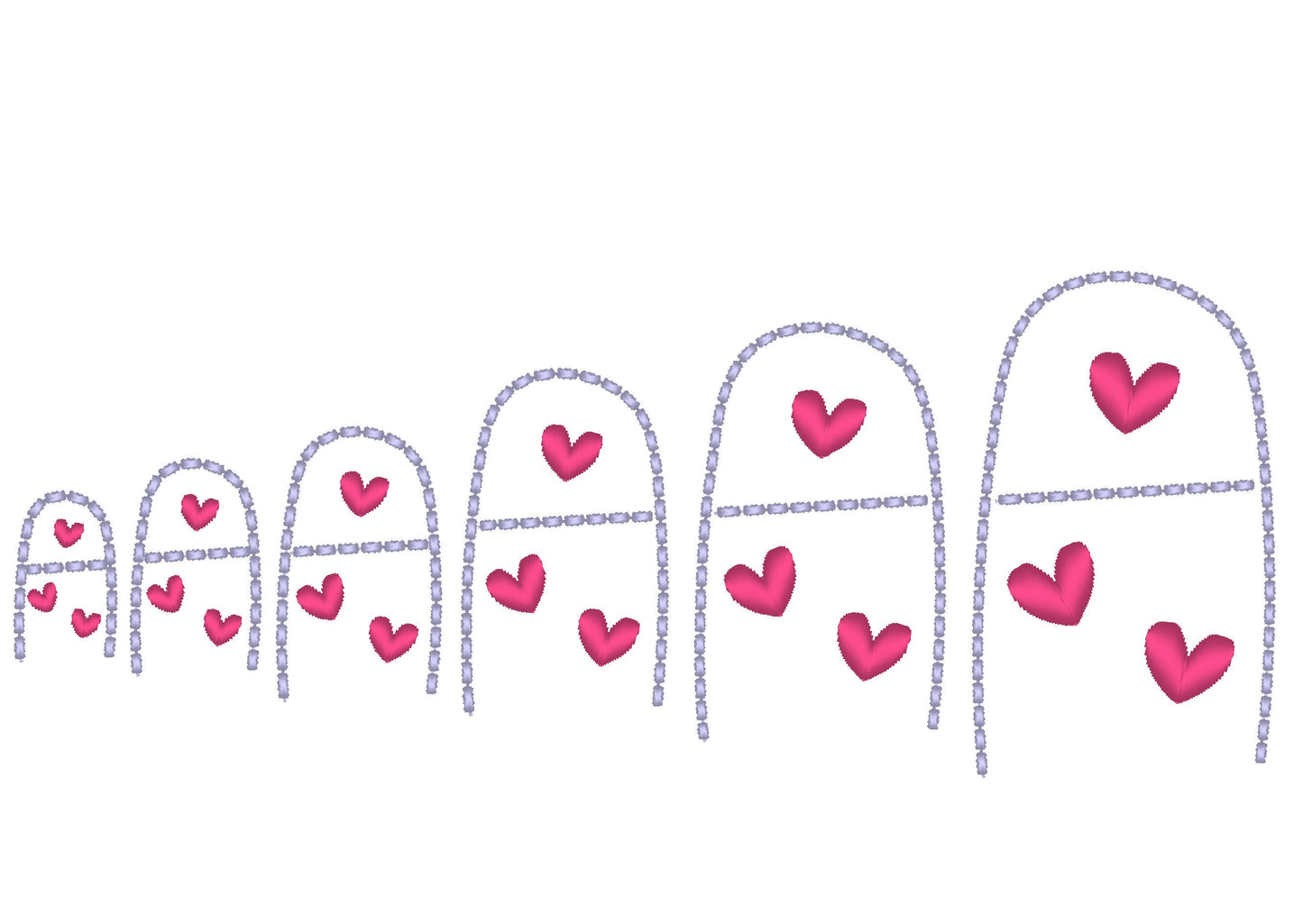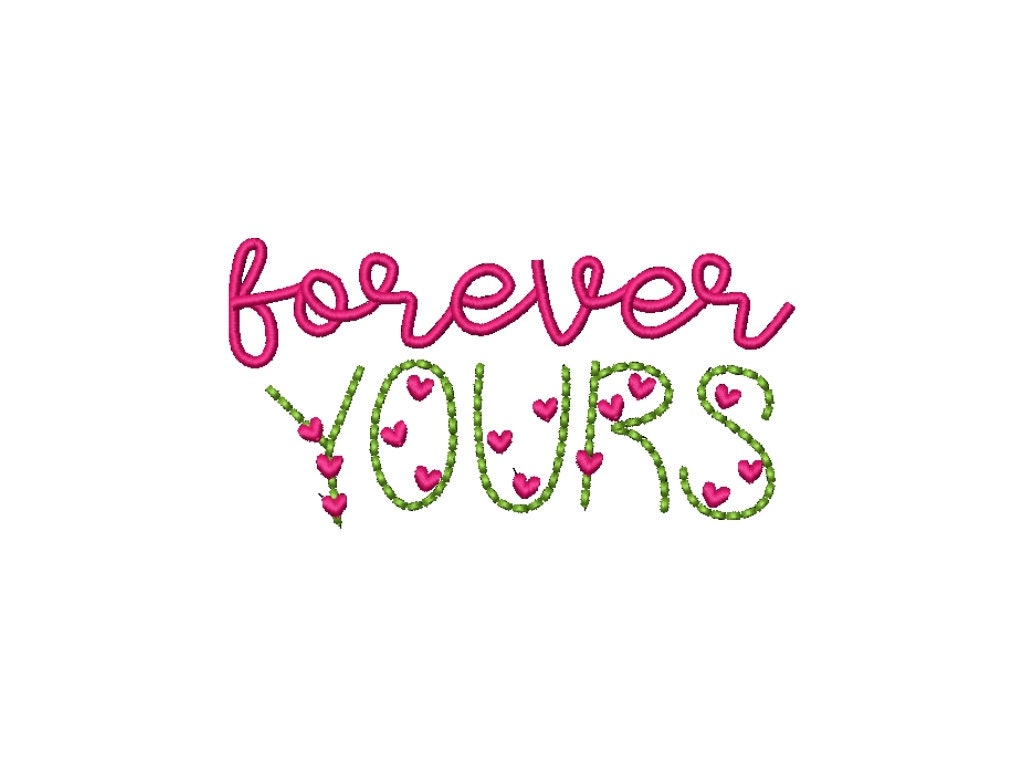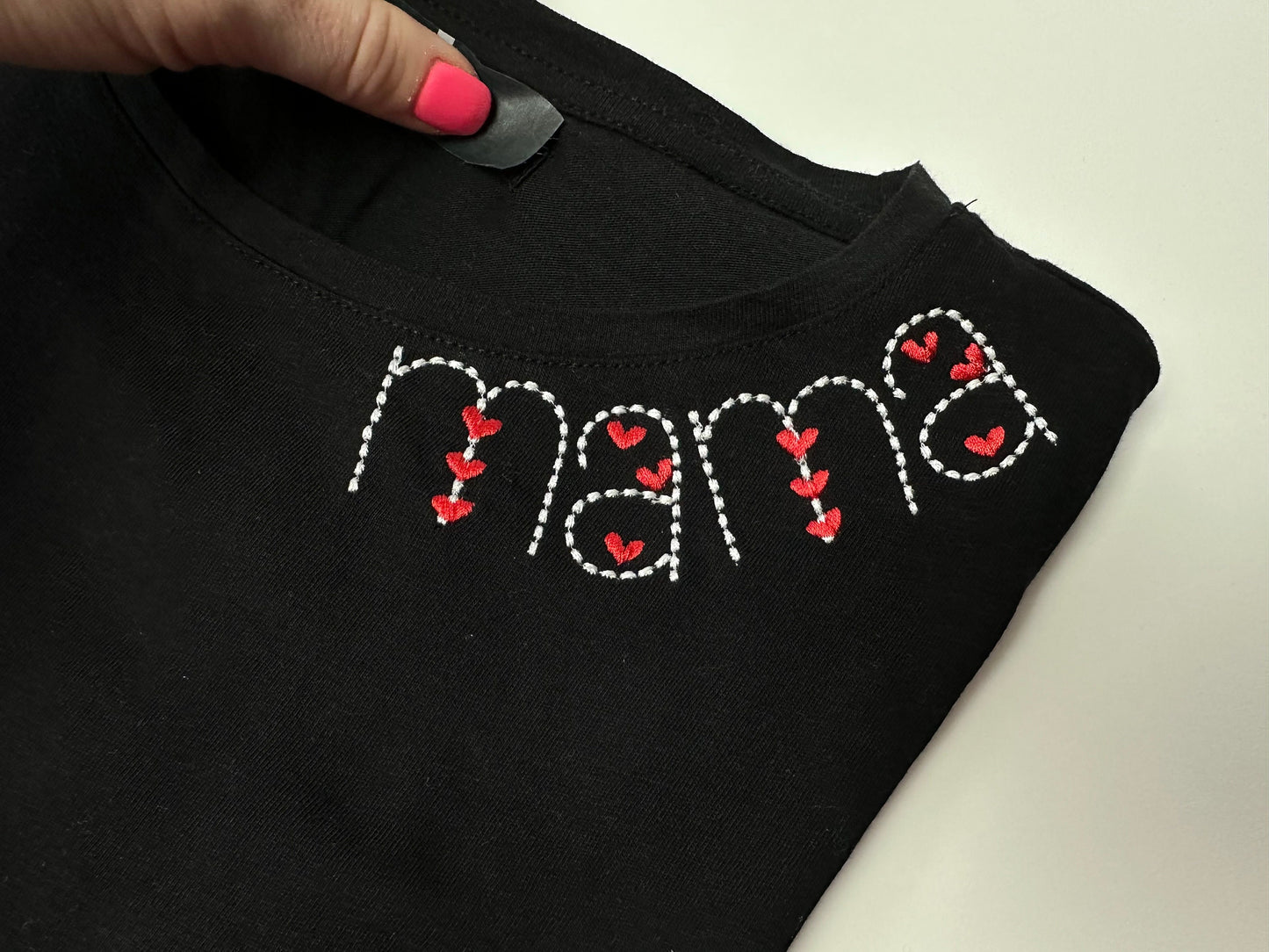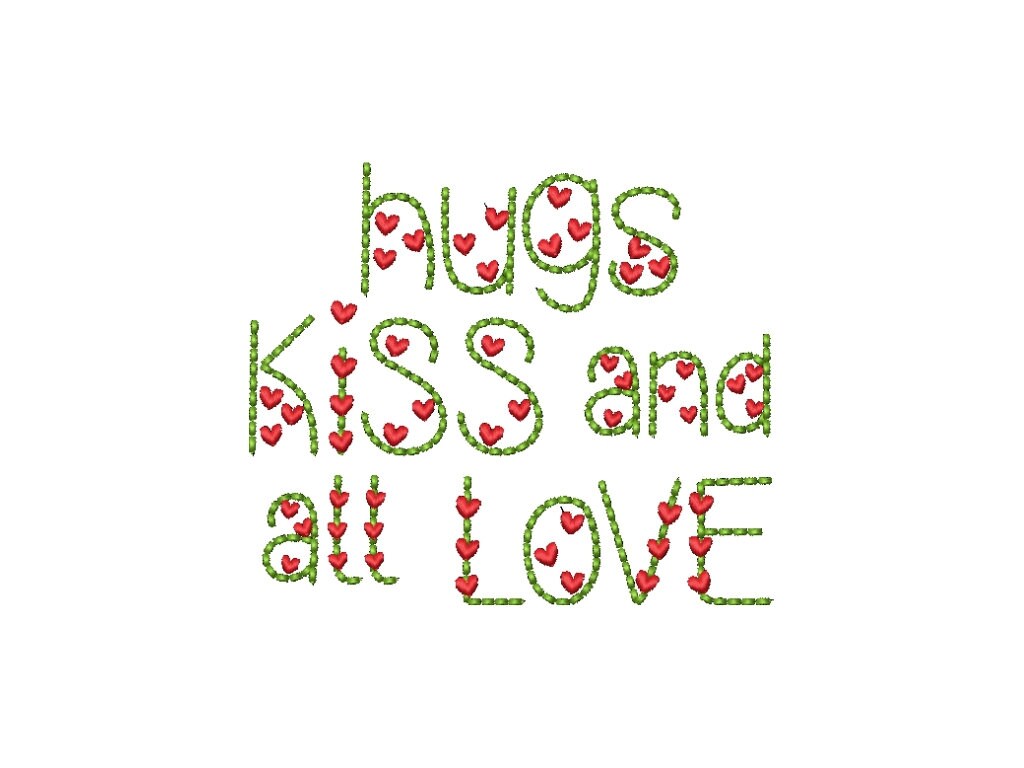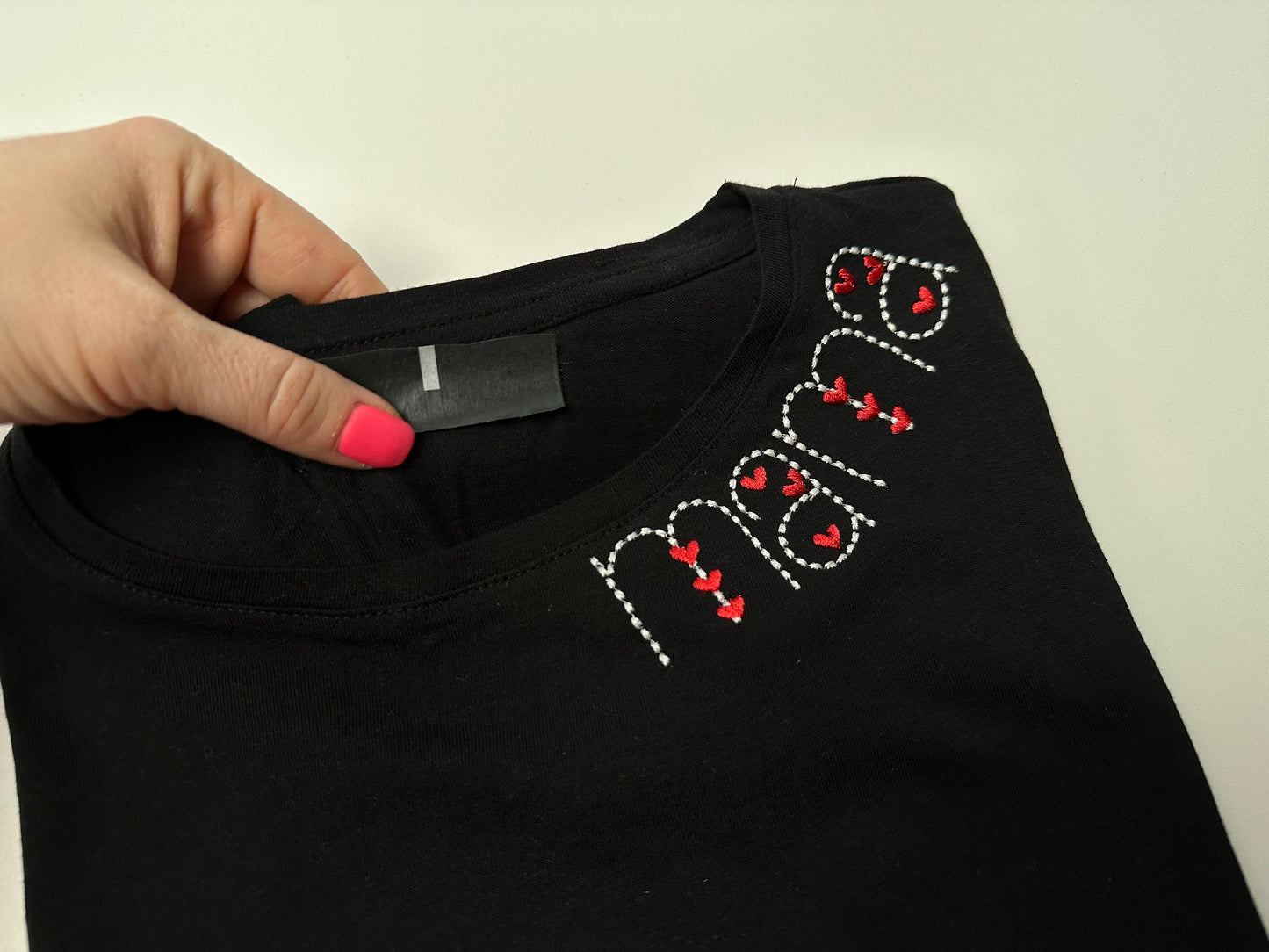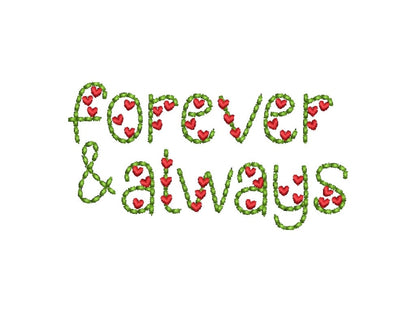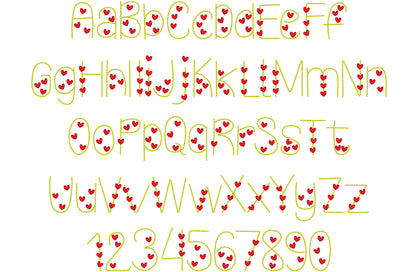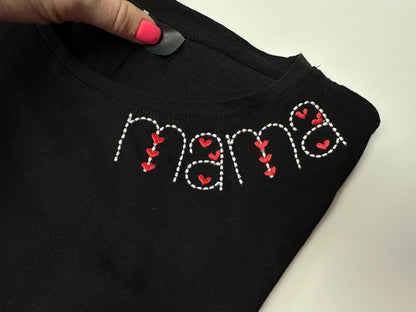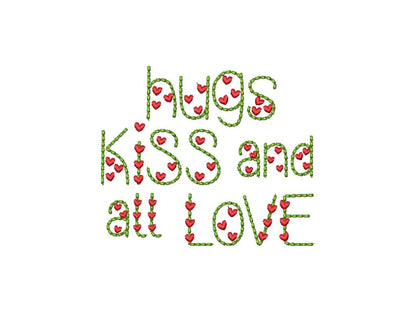
Or click to open the linkA handwritten heart line font in puff bean stitch that stands out slightly for a 3D look. Sweet for Valentine's names and words.
Uppercase and lowercase letters and numbers in six sizes: 1, 1.4, 1.8, 2.2, 2.7 and 3.2 inches.